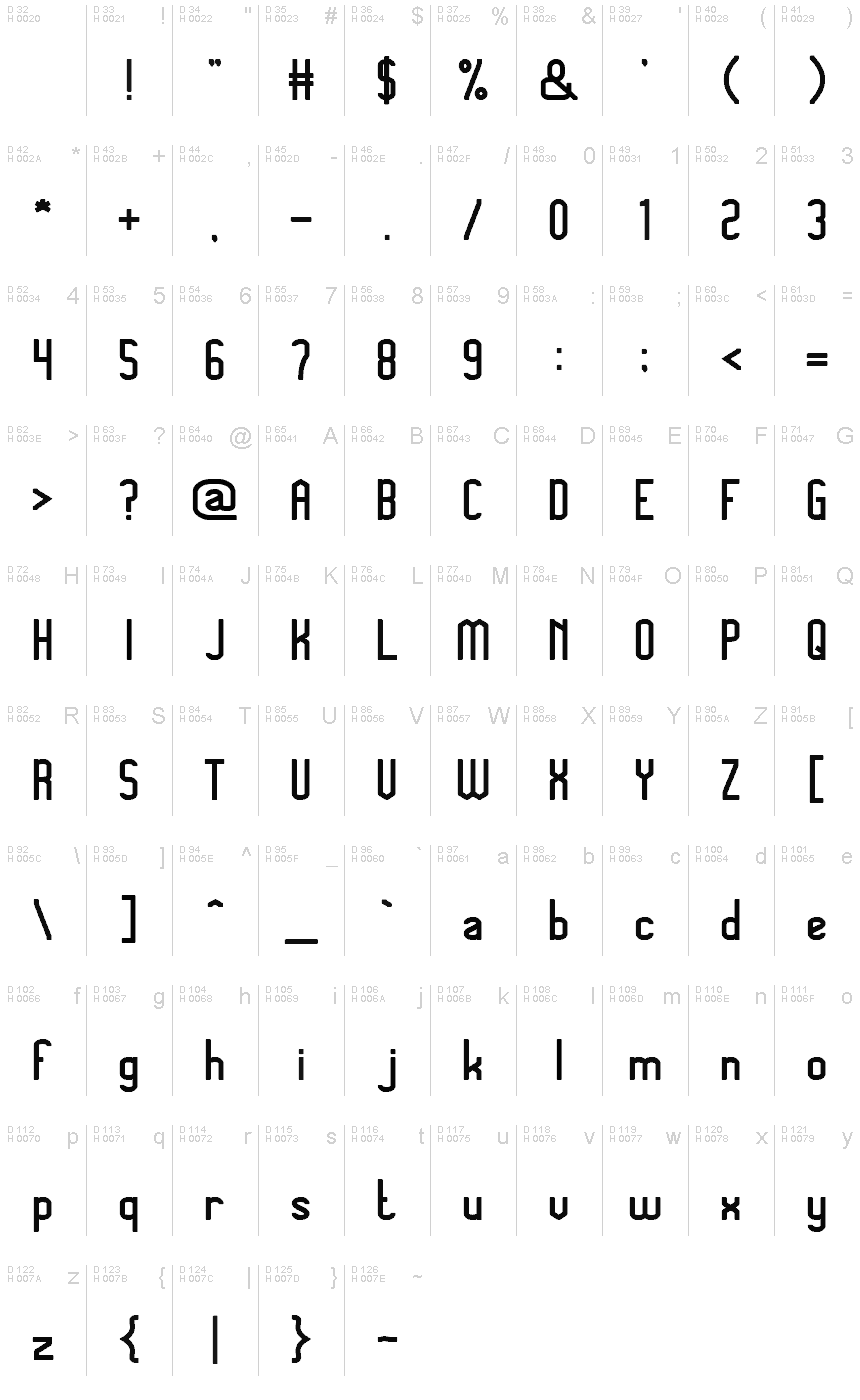
Megapolitan Jakarta Bold
Megapolitan Jakarta Bold, a striking condensed font from Weknow, exudes a bold and modern aesthetic. This typeface boasts clean lines, angular terminals, and a distinctive letterform style that commands attention. The condensed width lends it a sense of efficiency and compactness, making it an excellent choice for headlines, branding, and contemporary design projects.
The sharp, geometric shapes and generous counterspace within the letters create a harmonious, balanced composition. Megapolitan Jakarta Bold's robust and confident personality shines through, making it a versatile option for a wide range of applications, from editorial layouts to packaging design.
Designers seeking a font that blends functionality and visual impact will find Megapolitan Jakarta Bold particularly appealing. Its unique character and legibility make it a standout choice for projects where bold, attention-grabbing typography is desired, such as in advertising, event branding, or digital interfaces.